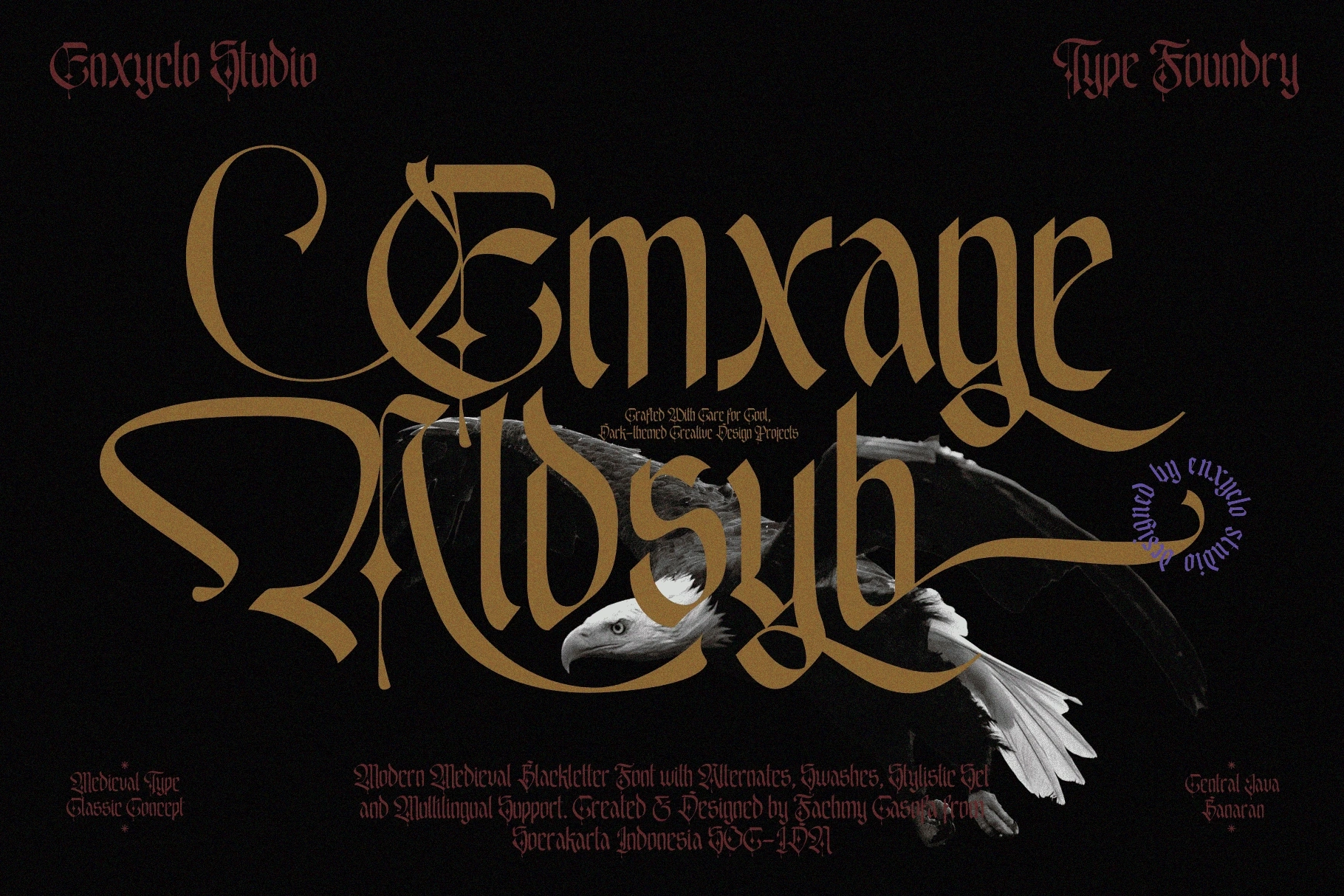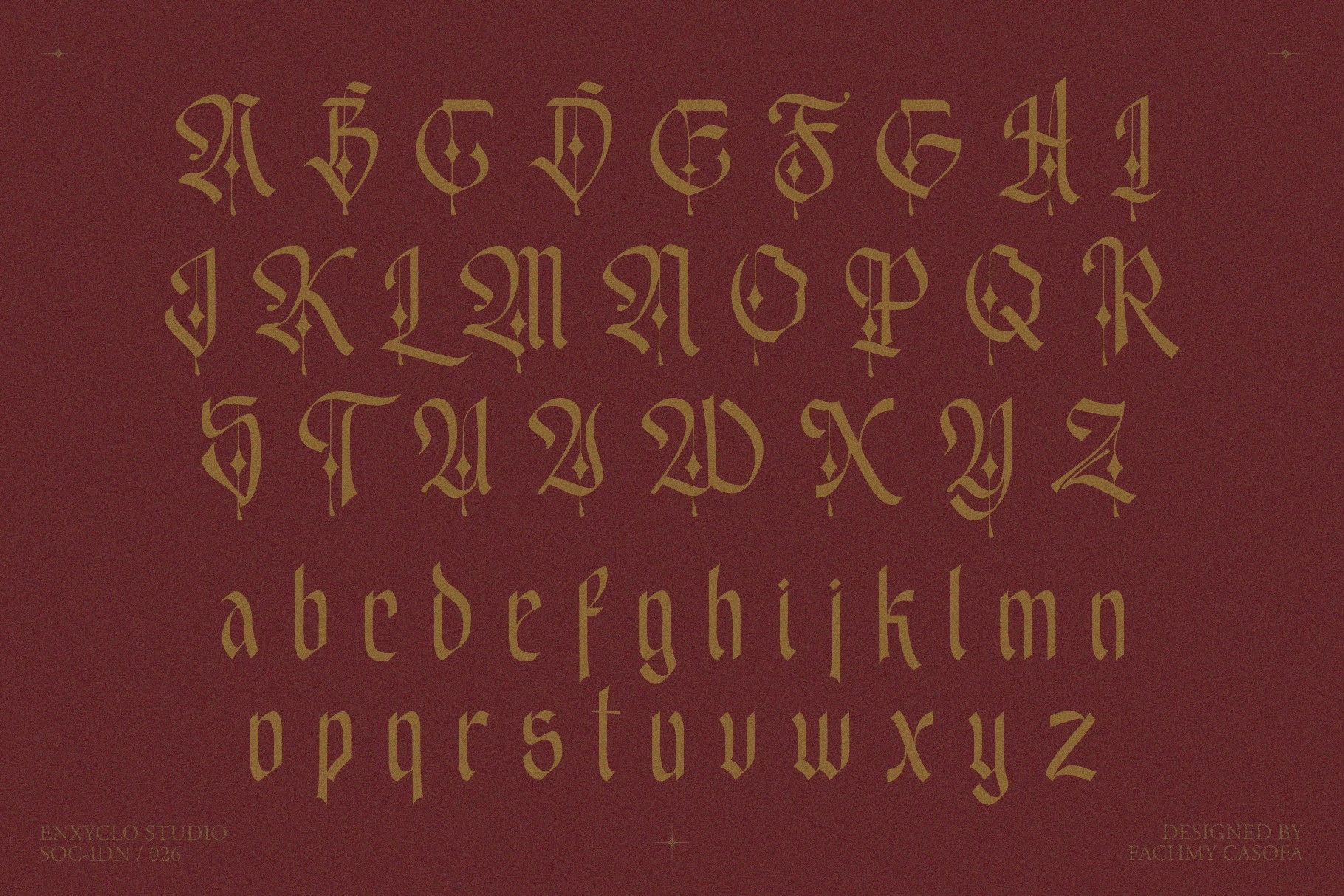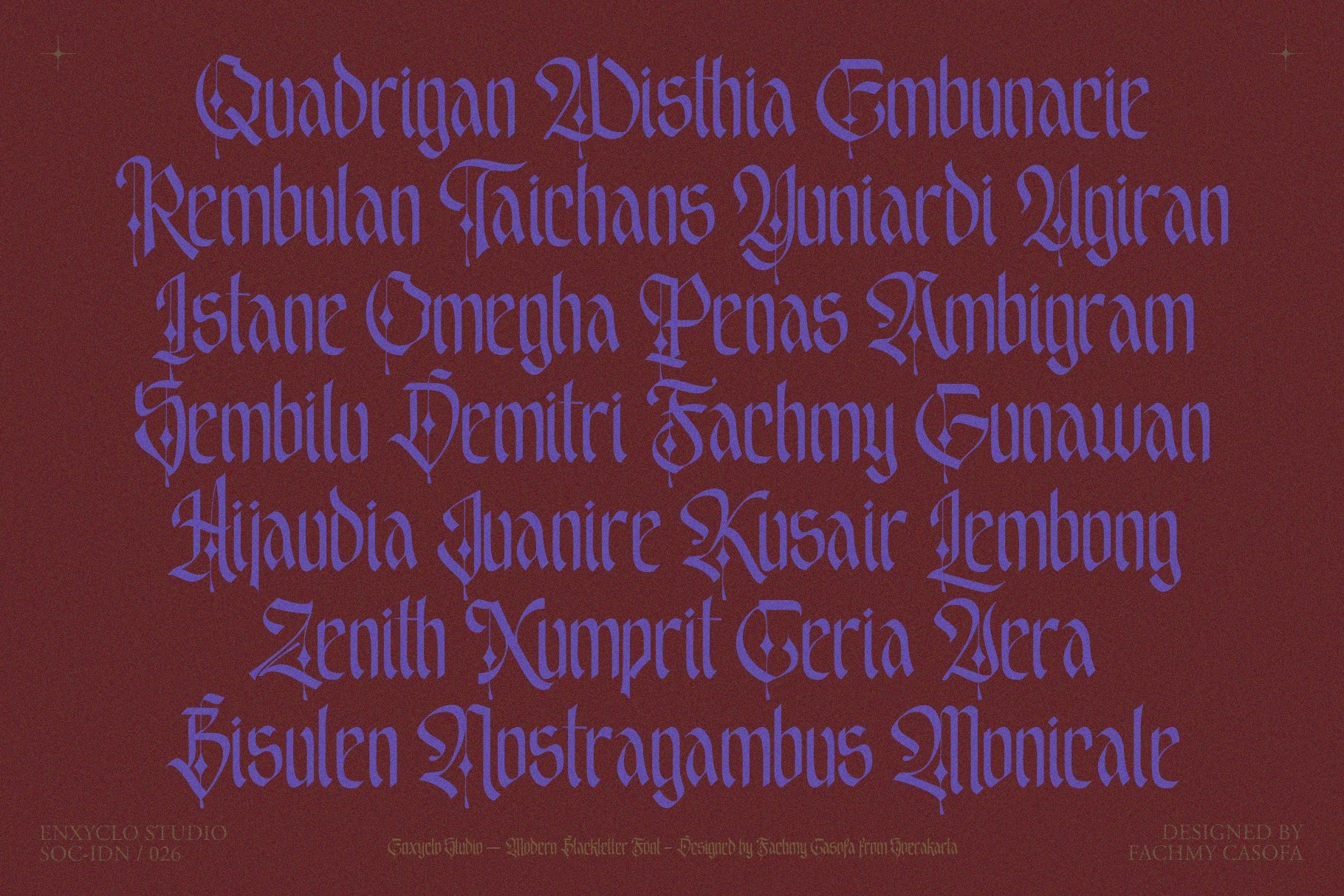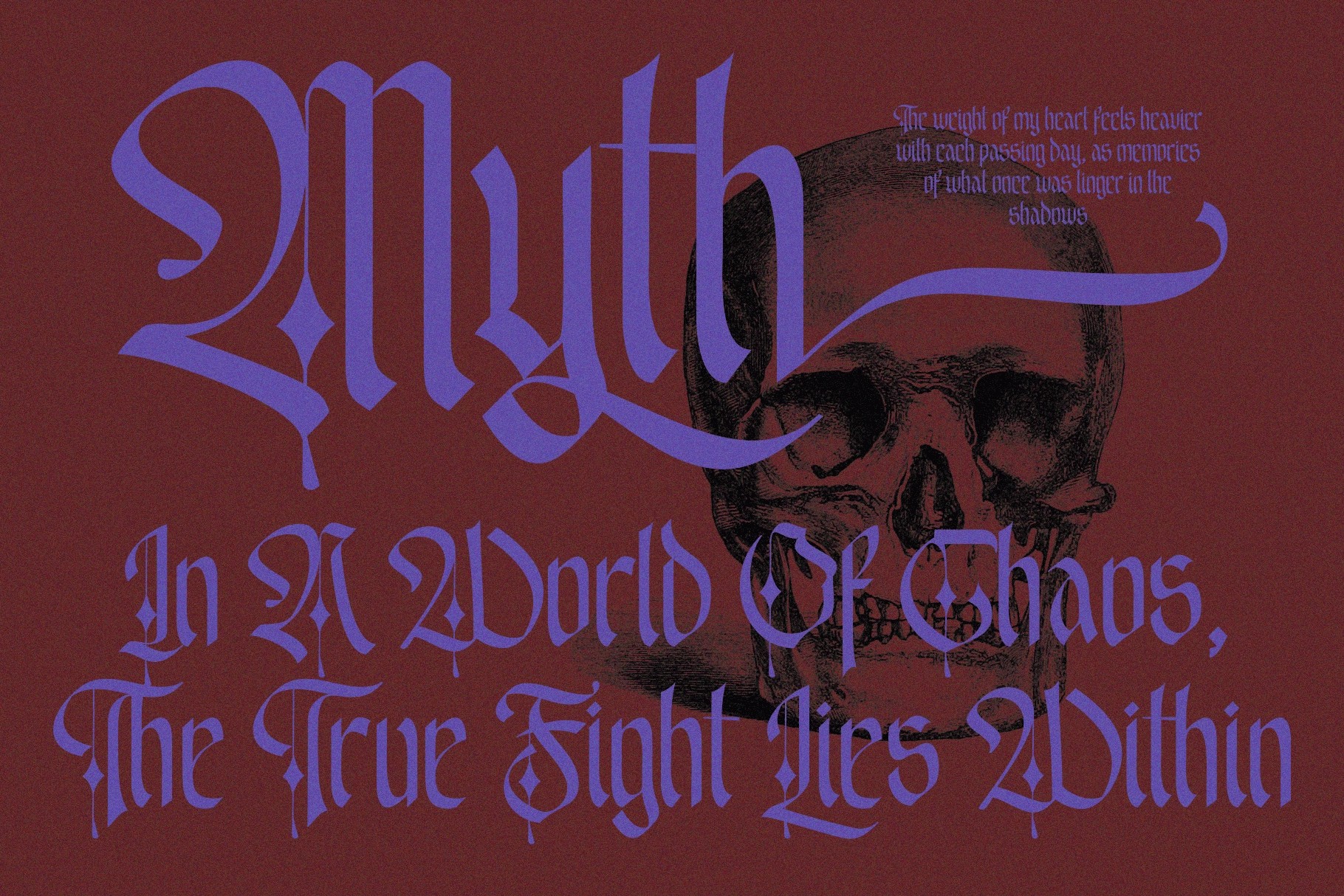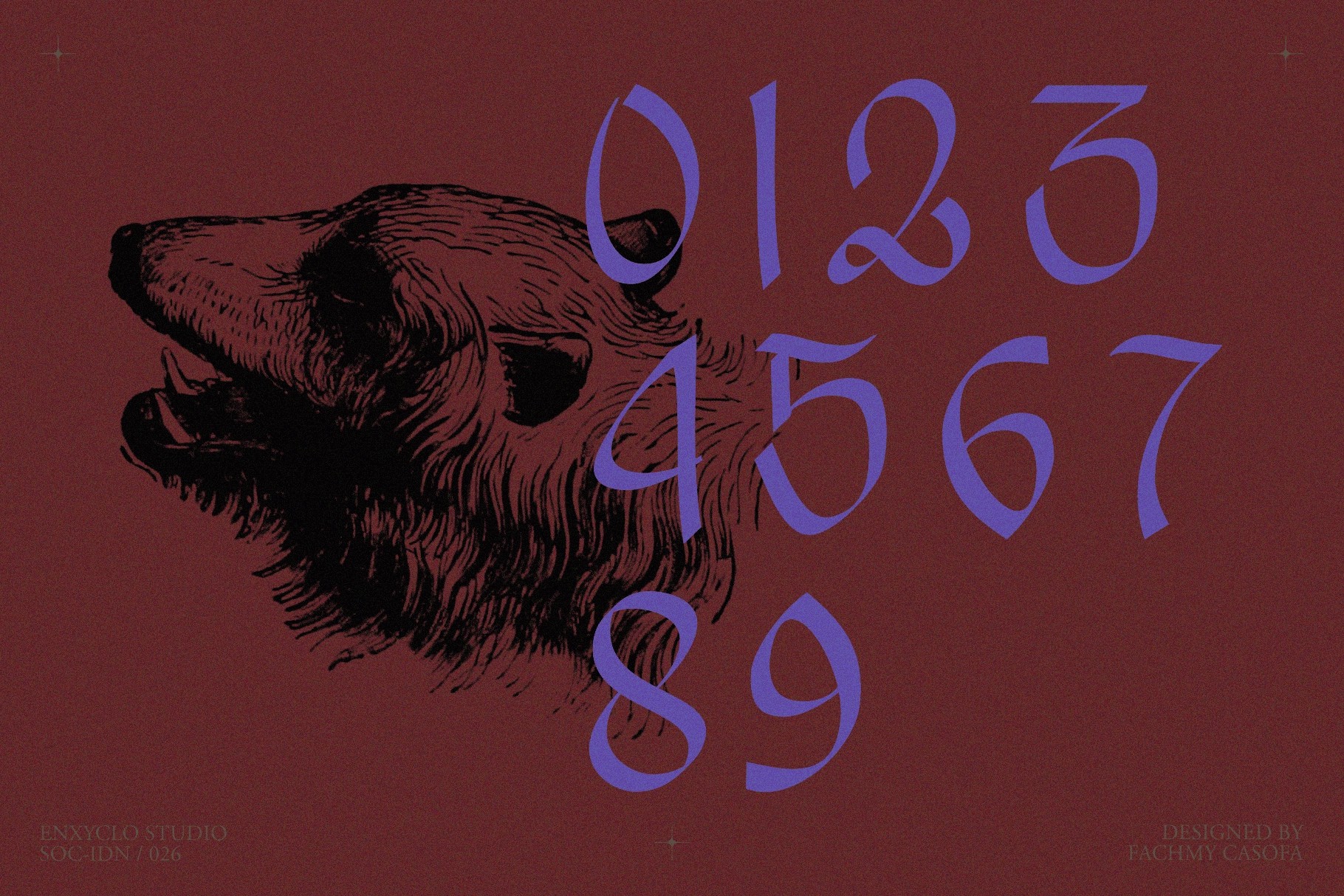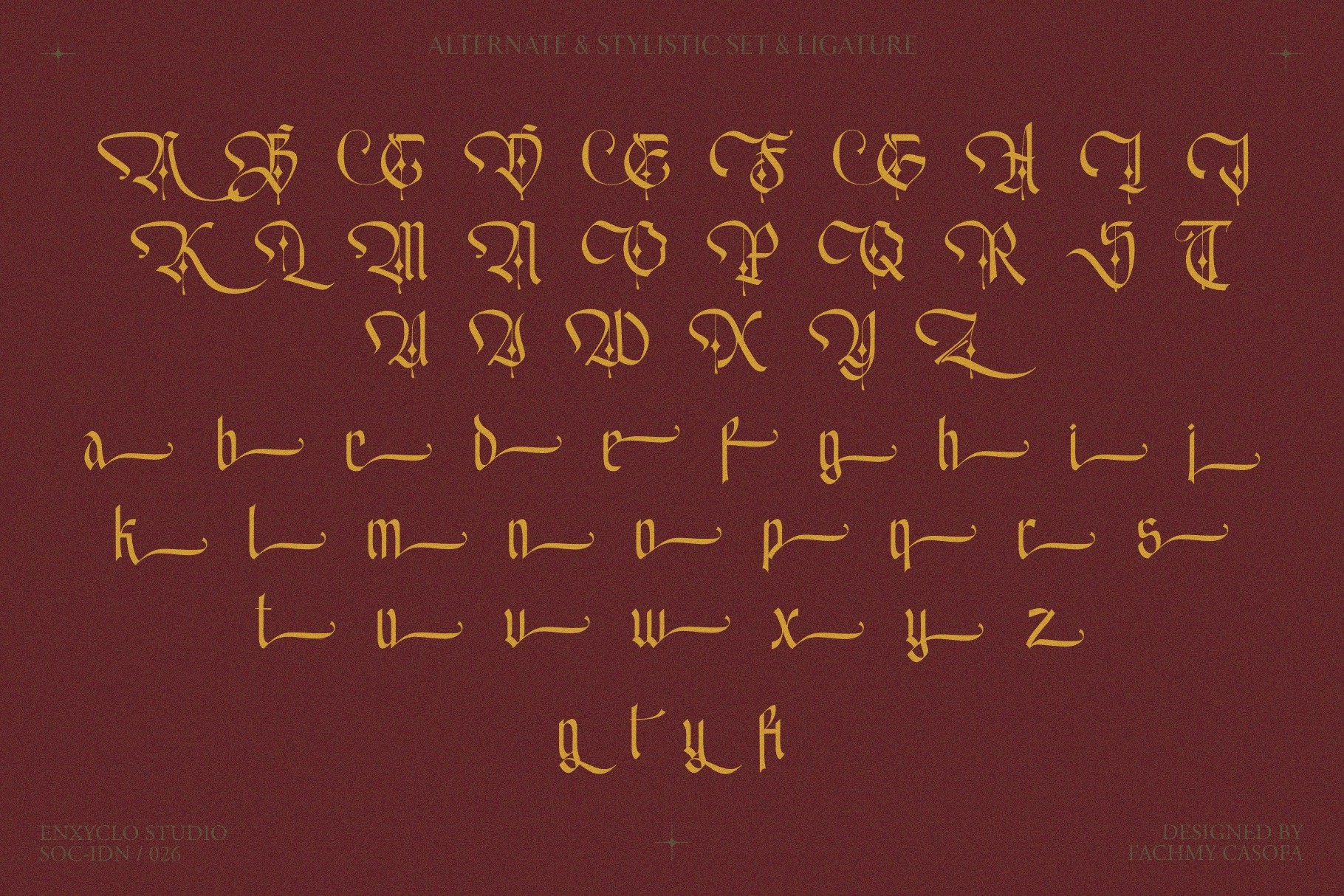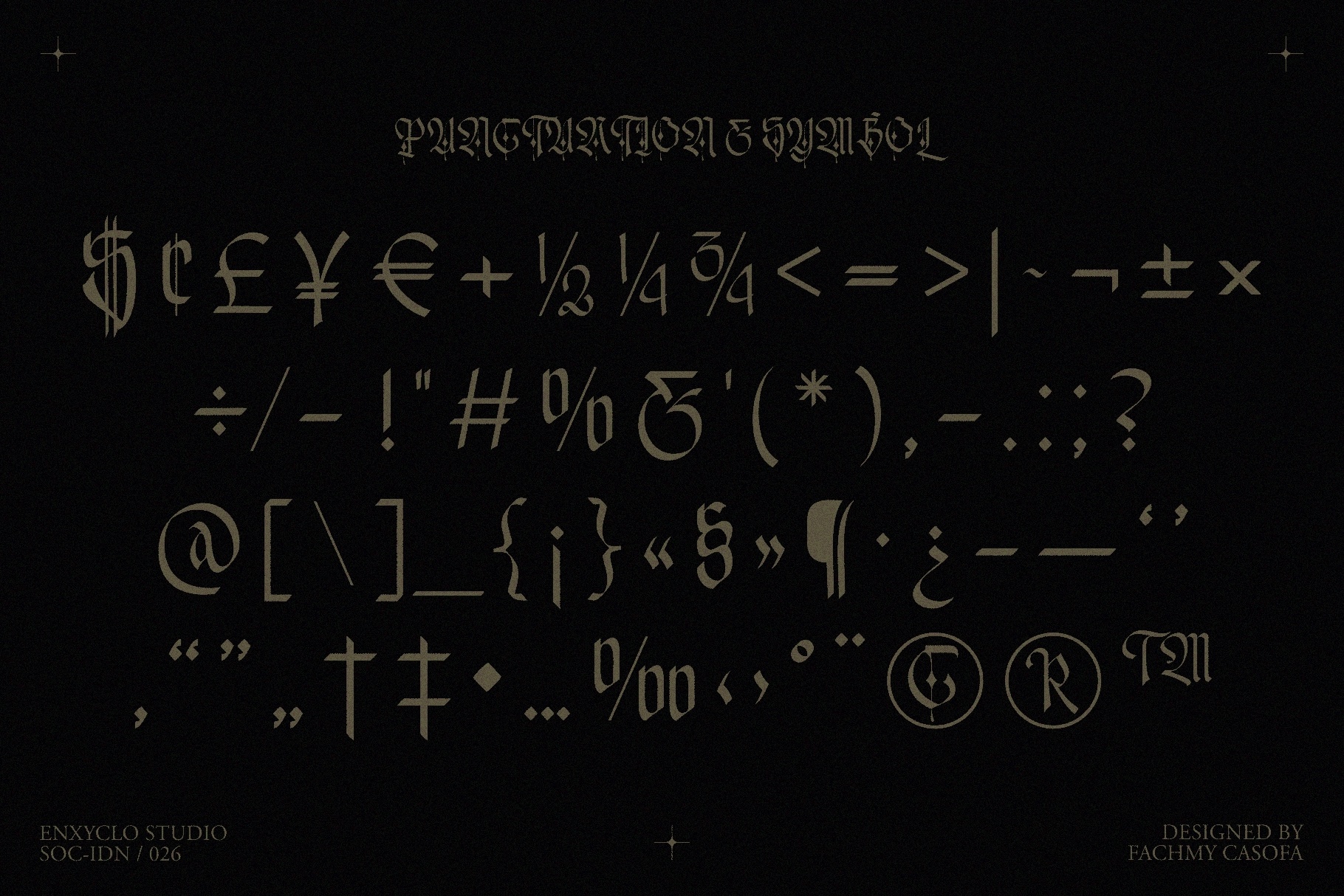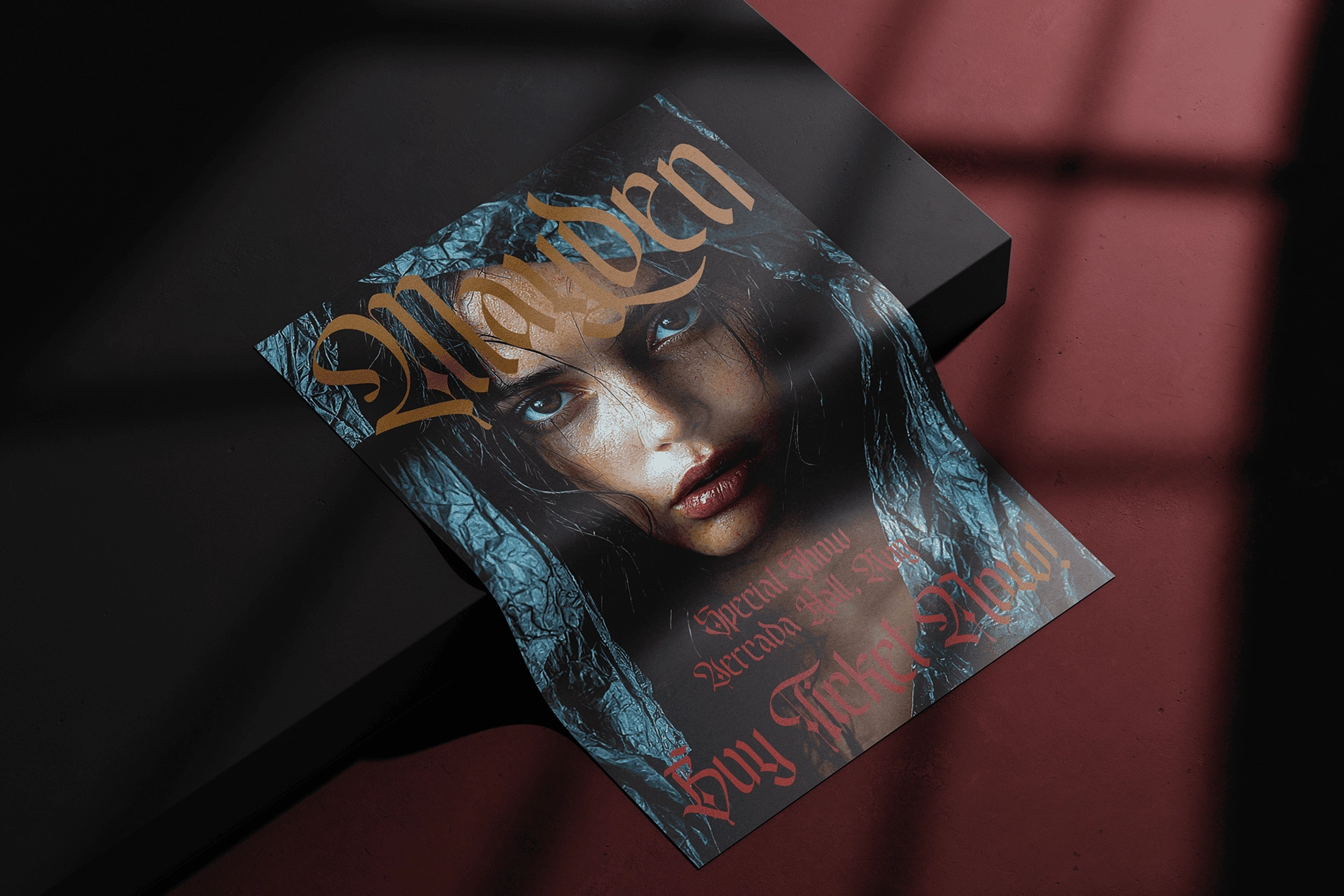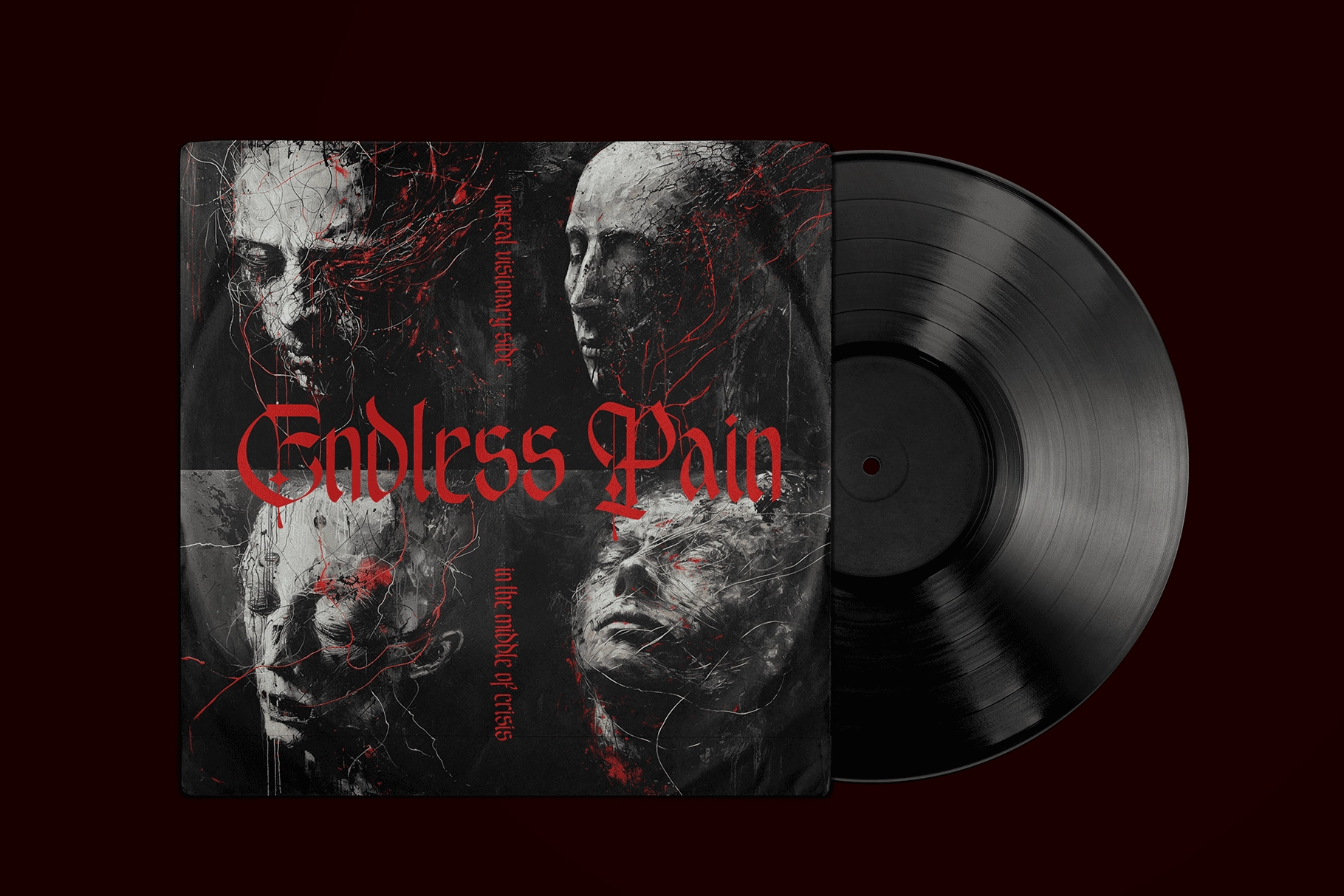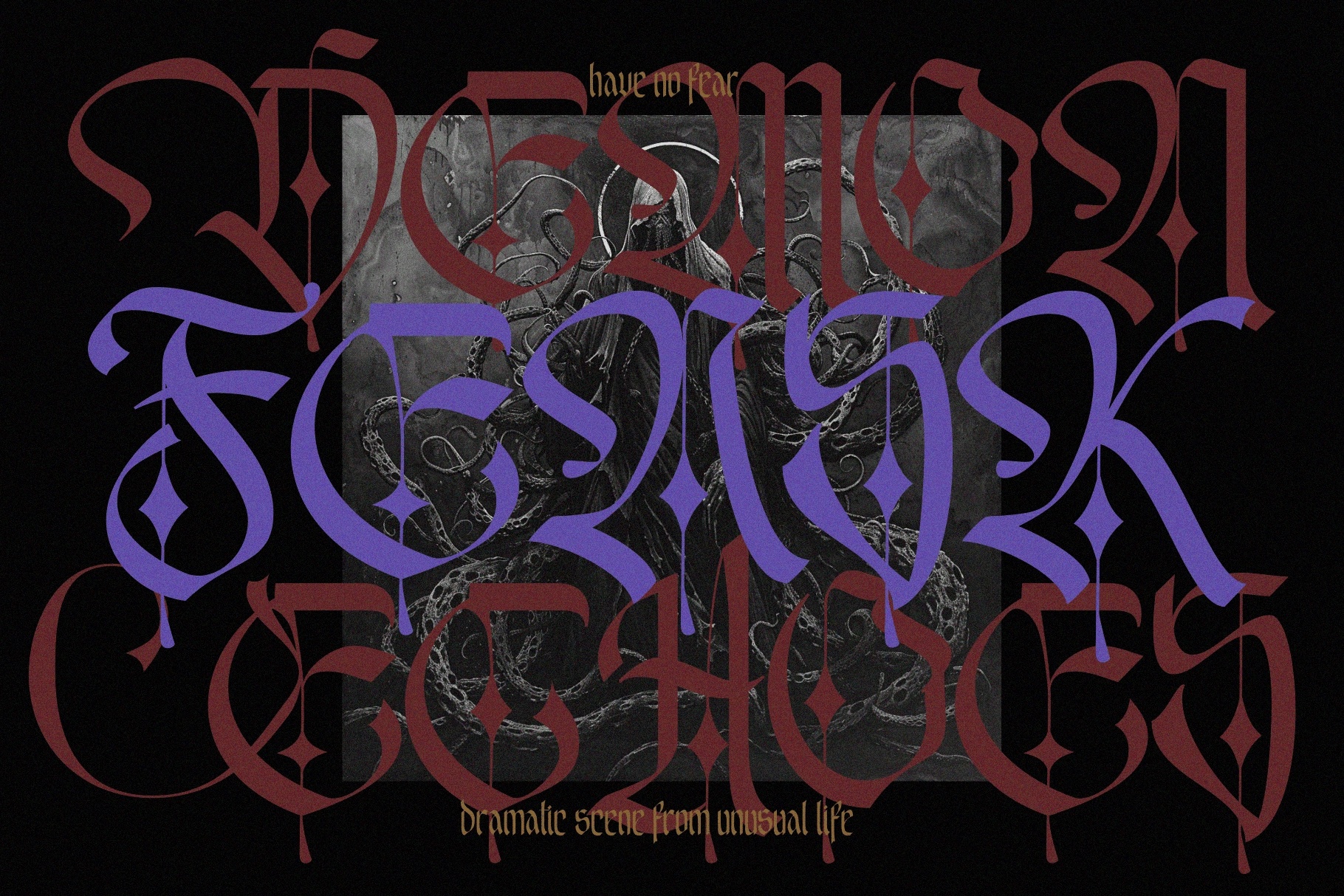
EMXAGE ALDSYB — Modern Medieval Blackletter Font
EMXAGE ALDSYB — Modern Medieval Blackletter Font is a bold reinterpretation of classic gothic letterforms, combining medieval aesthetics with a contemporary edge. Its sharp angles, ornamental strokes, and dramatic silhouettes create a strong visual impact, making it ideal for designs that demand character, history, and intensity in a modern context.
Blending traditional blackletter influences with experimental details, this typeface offers a rich set of expressive forms, including alternates and ligatures that enhance its decorative appeal. Perfect for striking headlines, branding, and artistic compositions, EMXAGE ALDSYB brings a distinctive and powerful identity to any project that leans toward gothic, vintage, or dark visual styles.
- Uppercase & lowercase characters
- Alternate, stylistic set & ligatures